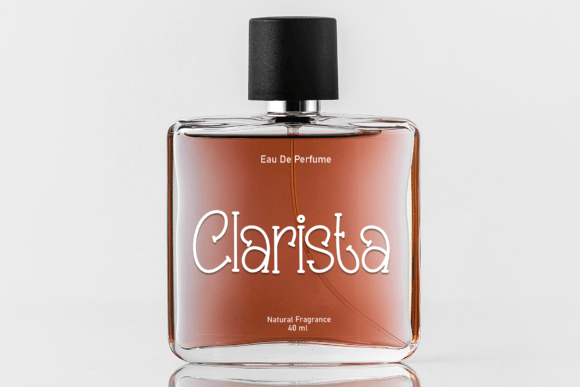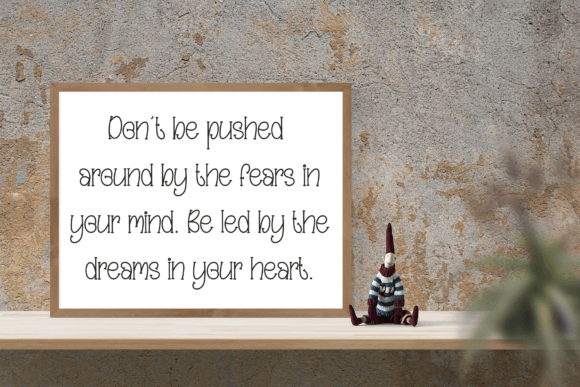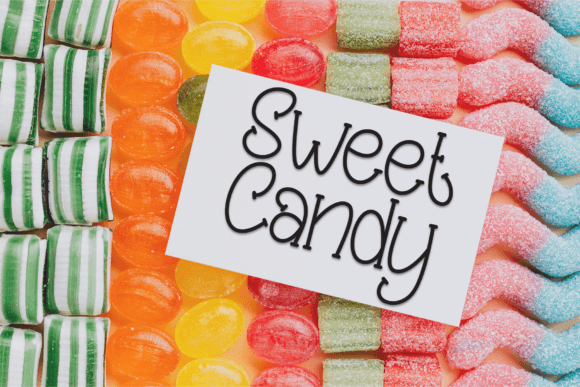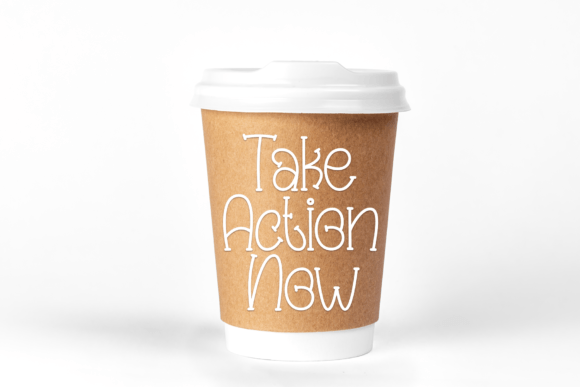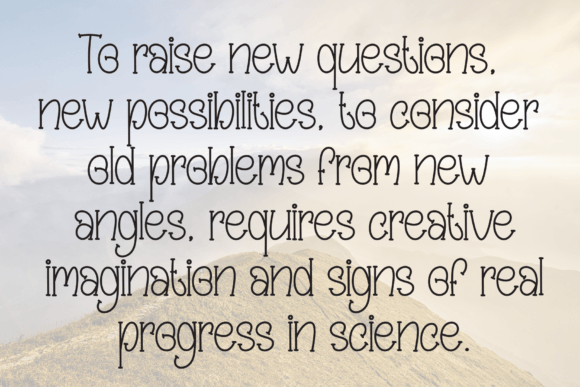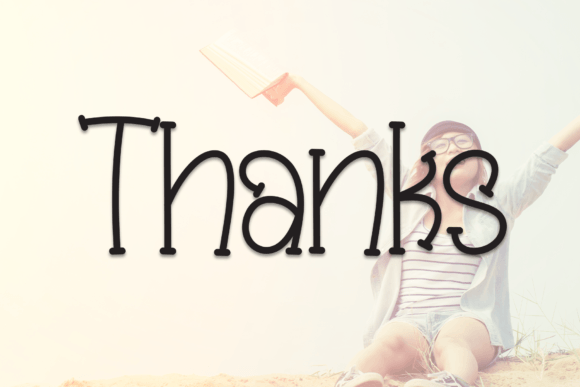
Happiness Sometimes Font: A Timeless Handwritten Delight
Are you on the hunt for a font that exudes warmth, personality, and a touch of whimsy? Look no further than Happiness Sometimes, a lovely and timeless handwritten font that’s sure to elevate your designs to the next level. With its natural and unique style, this versatile font is incredibly fitting for a wide range of projects, from branding and packaging to invitations and crafts.
Handwritten fonts have a way of adding a personal touch to any design. They evoke a sense of warmth, friendliness, and approachability that’s hard to replicate with more formal fonts. And Happiness Sometimes is no exception. This beautiful font boasts a distinctive, hand-crafted look that’s perfect for designers and crafters looking to add a dash of personality to their work.
What Makes Happiness Sometimes So Special?
So, what sets Happiness Sometimes apart from other handwritten fonts? Here are just a few reasons why this font is a standout:
- Natural and Unique Style: Happiness Sometimes has a one-of-a-kind look that’s both natural and effortless. Its subtle imperfections and quirks give it a charming, human feel that’s hard to replicate with digital fonts.
- Versatility: This font is incredibly versatile, making it suitable for a wide range of designs and projects. Whether you’re working on a logo, invitation, or packaging design, Happiness Sometimes is up to the task.
- Easy to Read: Despite its handwritten nature, Happiness Sometimes is remarkably easy to read, even at smaller sizes. This makes it perfect for body text, captions, and other applications where legibility is key.
Use Cases for Happiness Sometimes
So, what can you create with Happiness Sometimes? The possibilities are endless, but here are a few ideas to get you started:
- Branding and Logo Design: Use Happiness Sometimes to create a unique and memorable logo that reflects your brand’s personality.
- Invitations and Stationery: Add a touch of elegance and whimsy to your invitations, greeting cards, and other stationery with this beautiful font.
- Packaging Design: Happiness Sometimes is perfect for labels, packaging, and other design elements that require a personal touch.
- Crafts and DIY Projects: This font is also great for crafters and DIY enthusiasts who want to add a professional touch to their projects, from handmade cards to customized gifts.
Tips for Working with Happiness Sometimes
To get the most out of Happiness Sometimes, here are a few tips to keep in mind:
- Experiment with Sizes and Styles: Don’t be afraid to experiment with different sizes and styles to find the perfect look for your design.
- Pair with Other Fonts: Happiness Sometimes pairs well with a variety of other fonts, so don’t be afraid to try pairing it with other fonts to create visual interest.
- Use it Sparingly: While Happiness Sometimes is a beautiful font, it can be overwhelming if overused. Use it sparingly to create emphasis and add visual interest to your design.
In conclusion, Happiness Sometimes is a timeless handwritten font that’s sure to delight designers and crafters alike. Its natural and unique style makes it incredibly versatile, and its ease of use makes it perfect for a wide range of projects. Whether you’re looking to add a personal touch to your branding, create beautiful invitations, or simply want to elevate your craft projects, Happiness Sometimes is the perfect choice. So why wait? Give it a try today and see the difference it can make in your designs!